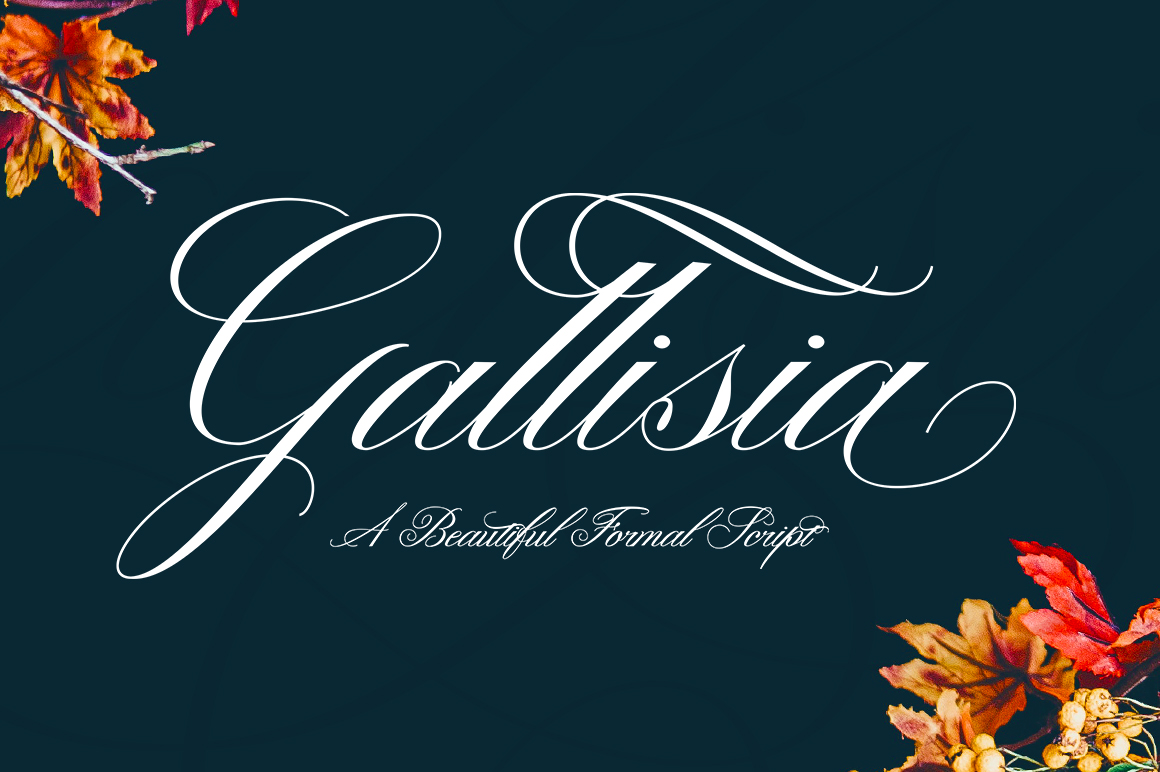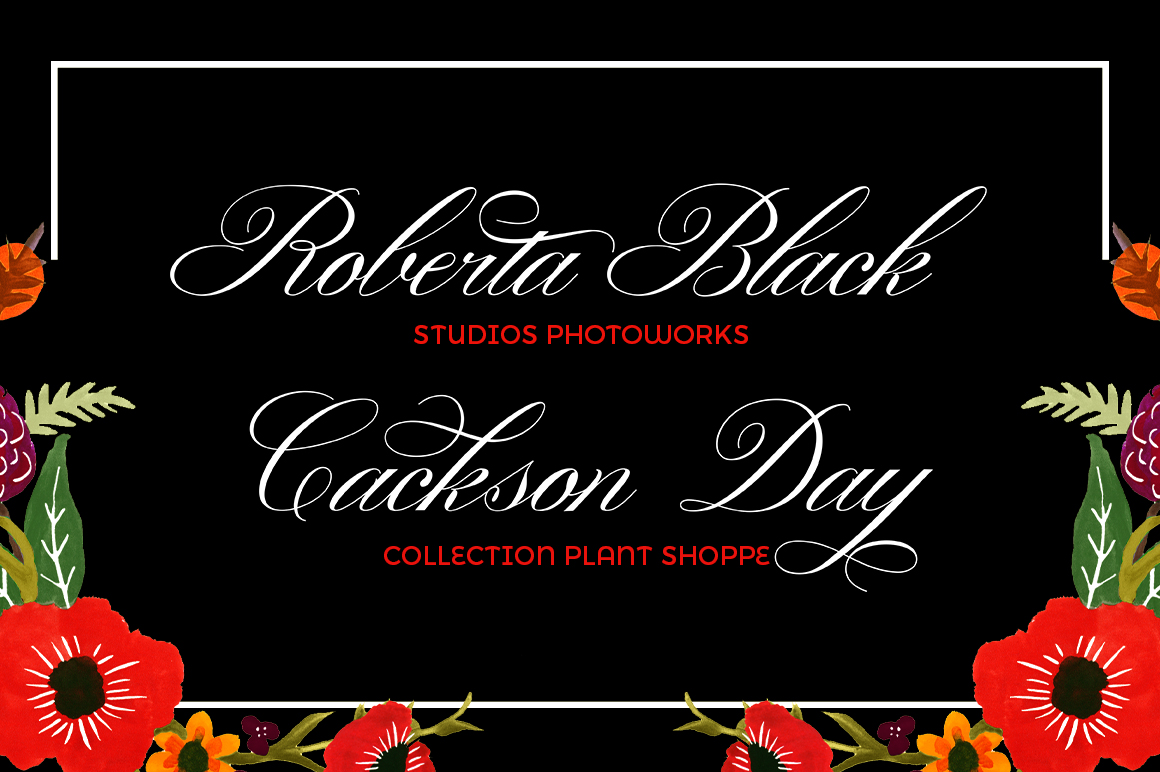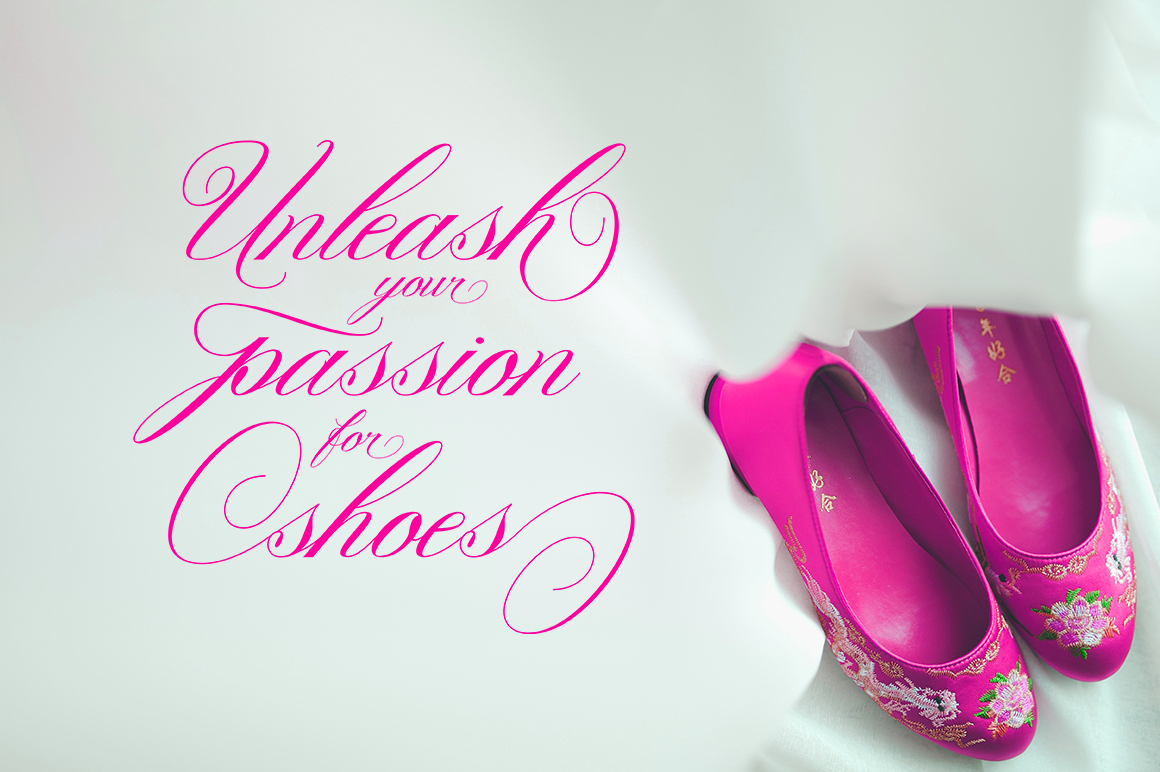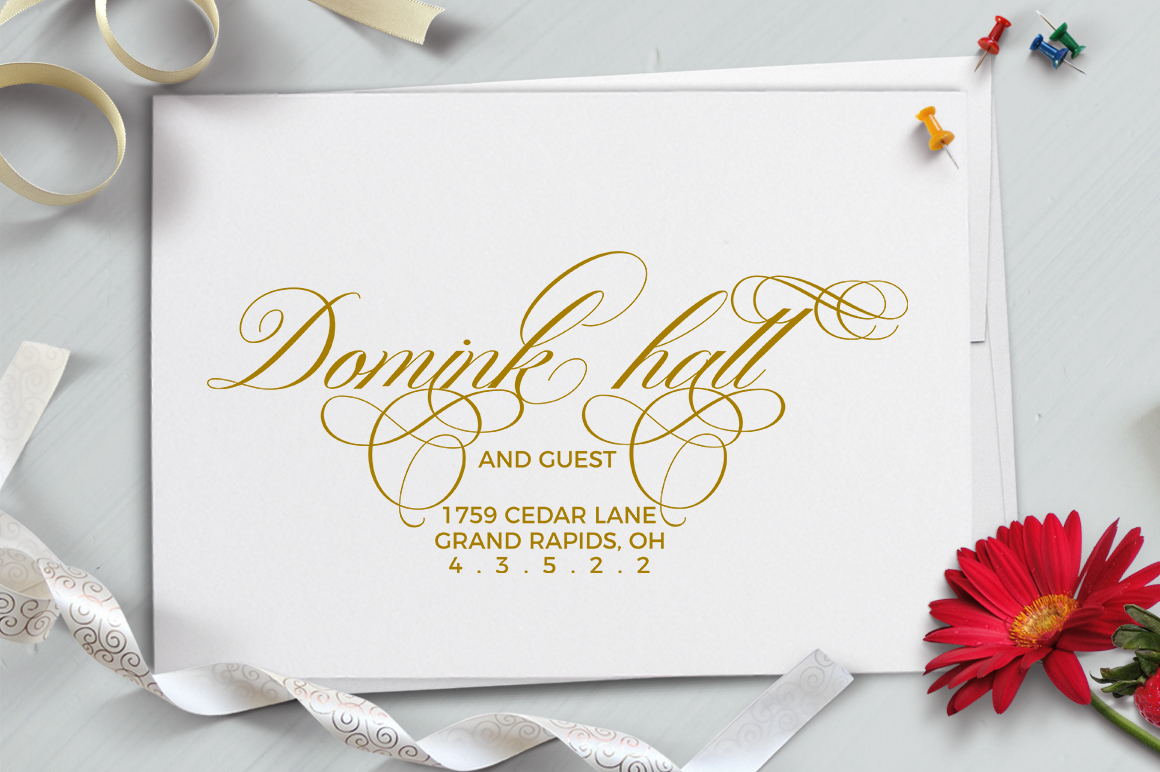
Gallisia Font
About Gallisia Font
The Gallisia Script font is a formal looking handwritten font. It’s very neat and feminine and will add a classy effect to your texts.
It can be used for a huge variety of design projects, such as logos, packaging, invites, branding and much more.